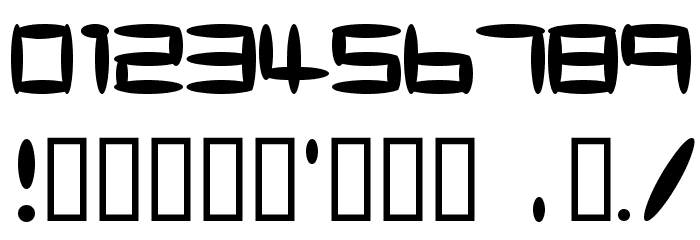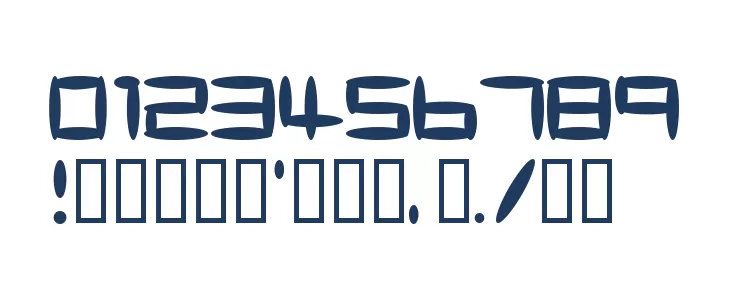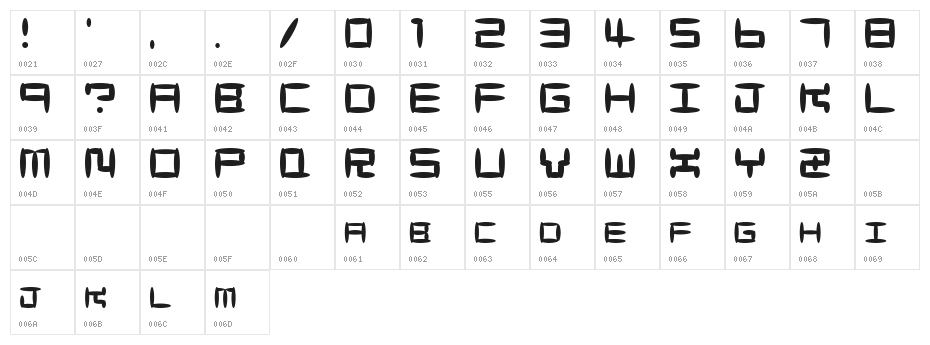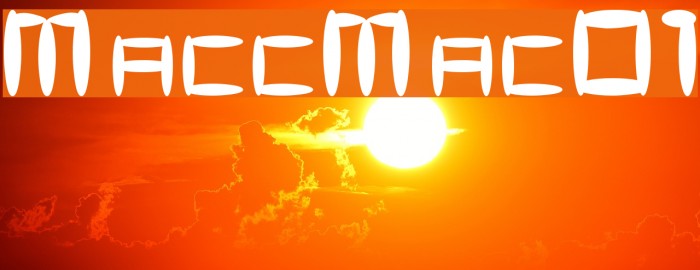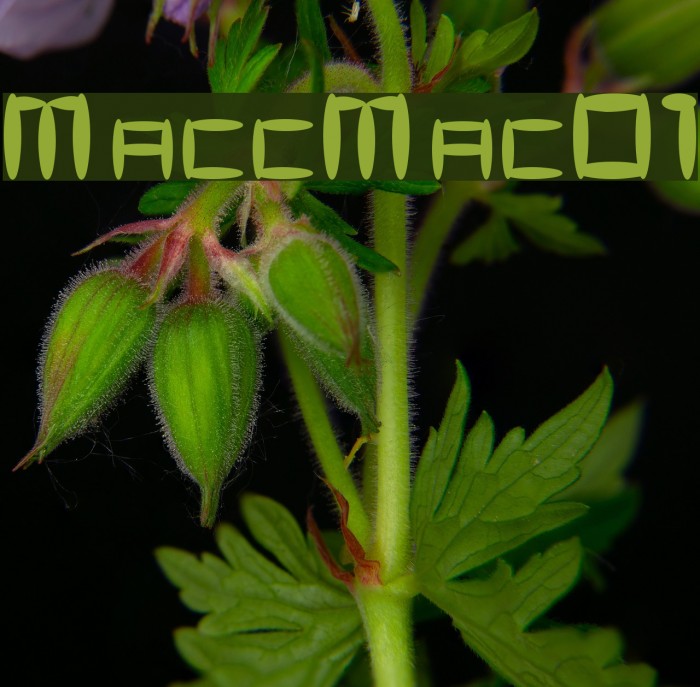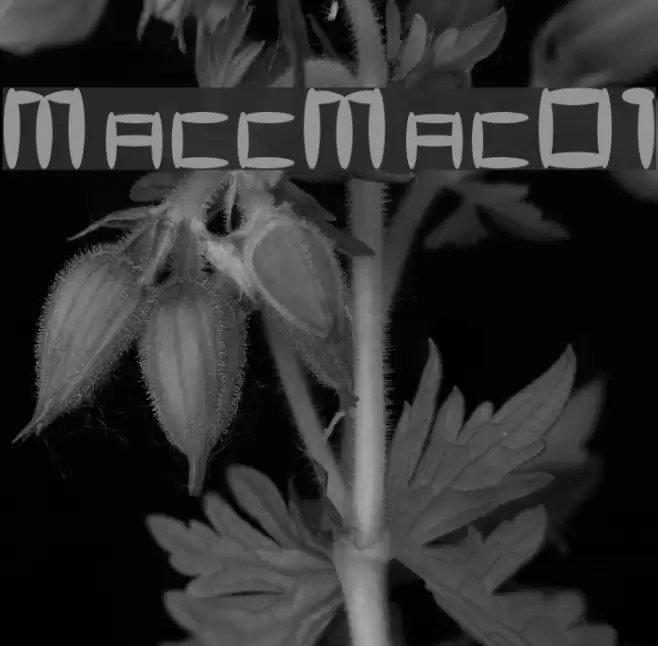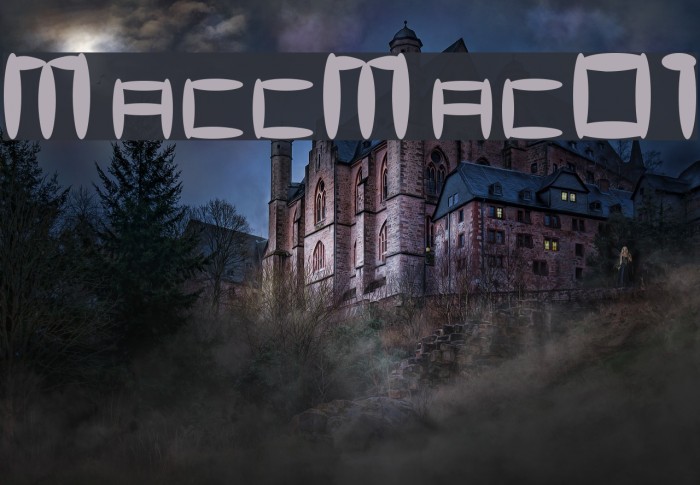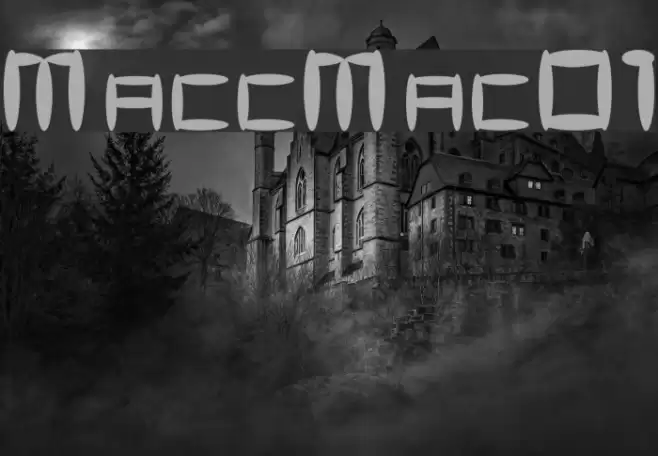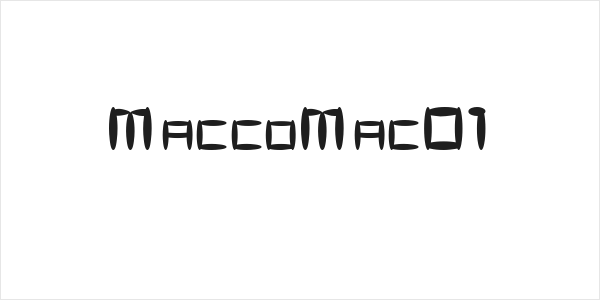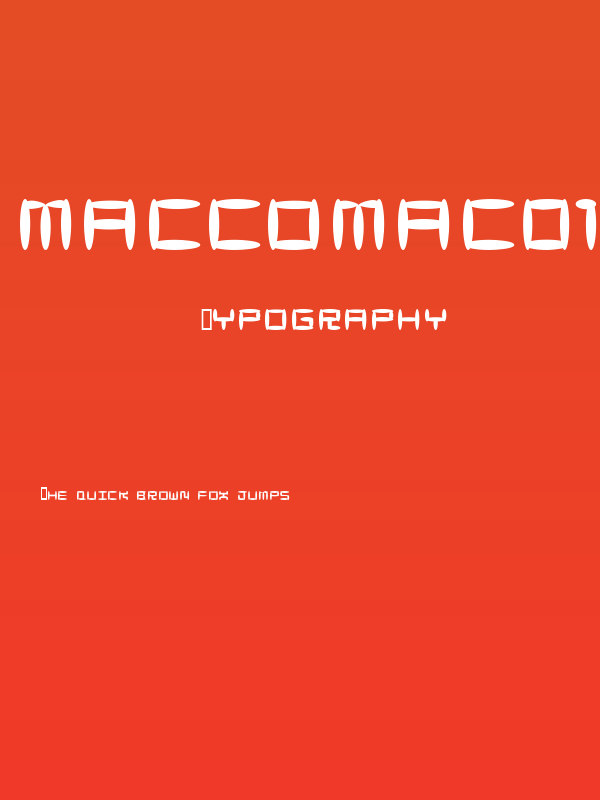
MaccoMac01 Font
MaccoMac01 Description
This font features a futuristic and geometric design, characterized by its bold and angular letterforms. The uppercase and lowercase letters share a consistent style, with sharp edges and a uniform thickness that gives a modern and tech-inspired appearance. The numbers follow the same design principles, maintaining the bold and structured look. Special characters are uniquely styled, adding to the font's distinctiveness. The overall aesthetic is sleek and contemporary, making it suitable for projects that require a modern and edgy feel.
| Proposed Projects | Ideal for sci-fi movie posters, tech branding, video game titles, and futuristic-themed designs. |